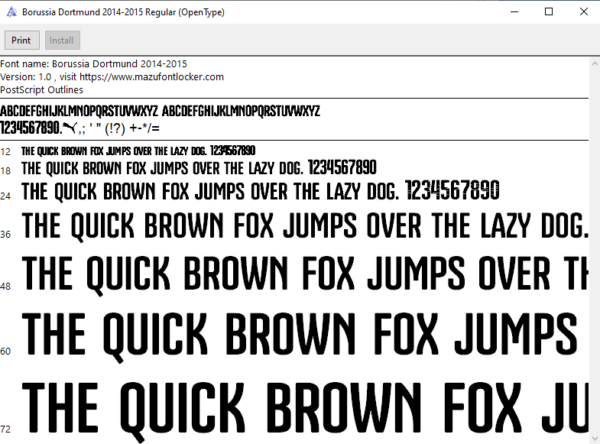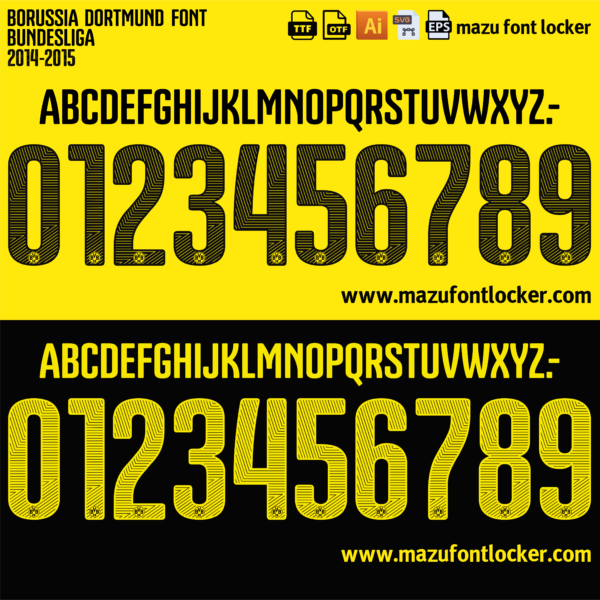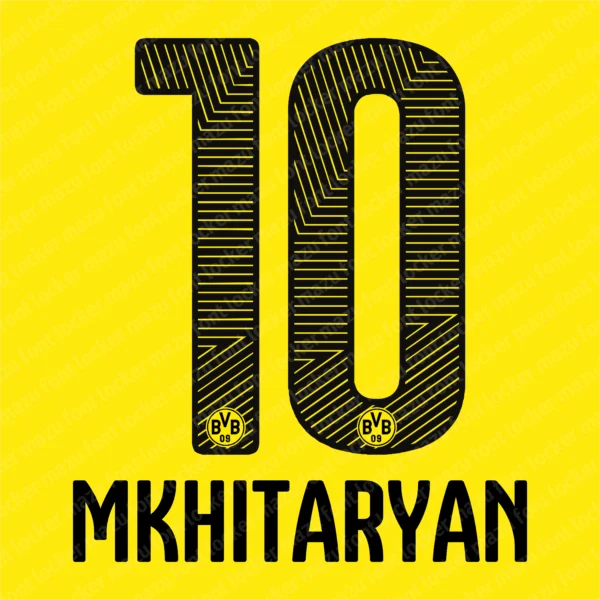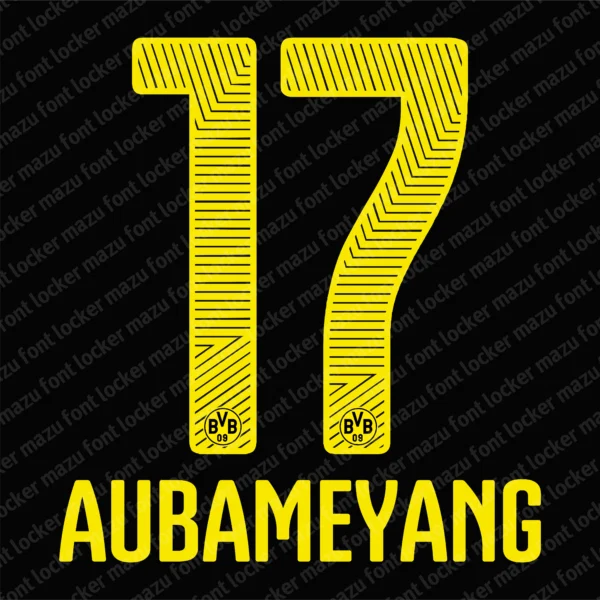
Borussia Dortmund 2014-2015 Font Vector – Legendary BVB Triumph Masterpiece
This premium font captures the commanding, iconic, majestic, and battle-ready lettering that embodies the unstoppable BVB spirit — delivering raw Westphalian passion, explosive winning energy, relentless never-say-die mentality, tactical supremacy, and legendary yellow-black phoenix grit.
Borussia Dortmund 2014-2015 Font Vector – Authentic Borussia Dortmund Typeface
The Borussia Dortmund 2014-2015 Font Vector is a premium typeface that accurately recreates the official match lettering worn by Borussia Dortmund during the 2014-2015 season. This high-quality vector font kit captures the bold, dynamic, and energetic typography that represents the rich heritage, passion, and black-and-yellow pride of the club.
This font stands out because of its sharp vector precision and strong club identity. Every letter and number is crafted to match the exact style used on the players’ shirts during the 2014-2015 season. Whether you are making realistic kit templates or exciting Borussia Dortmund content, the Borussia Dortmund 2014-2015 Font Vector gives your designs that authentic Schwarzgelben look.
The letterforms in the Borussia Dortmund 2014-2015 Font Vector are tall, bold, and highly readable. The strokes have a strong, clean weight with excellent edge definition that looks powerful on the back of jerseys while maintaining classic German football heritage and modern sporting elegance.
• Full uppercase A–Z and numbers 0–9 in authentic Borussia Dortmund 2014-2015 style